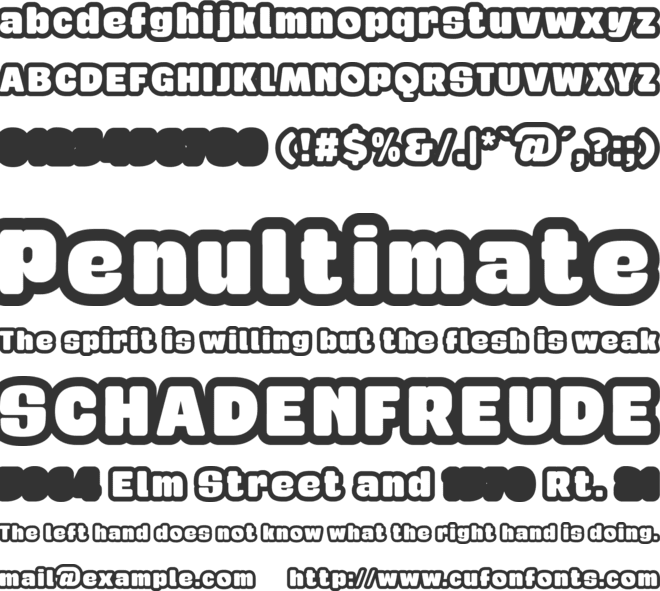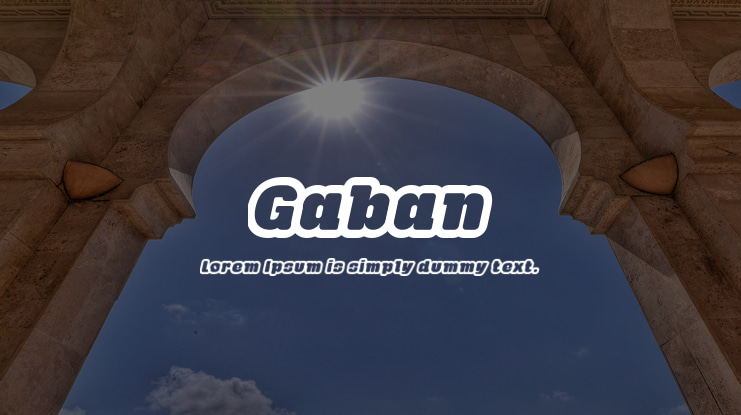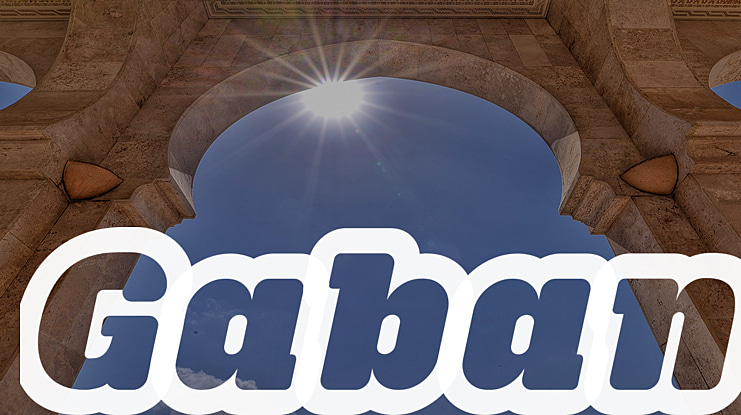
Gaban Font Family
Gabán is the outline of my previous version Tabardo font; a decorative continuous outline display font, very thick and rounded. The Kerning I have carefully defined so that all the letters remain together smoothly, providing maximum readability. Useful for titles, banners, posters or graphic design which seeks a fun and friendly.